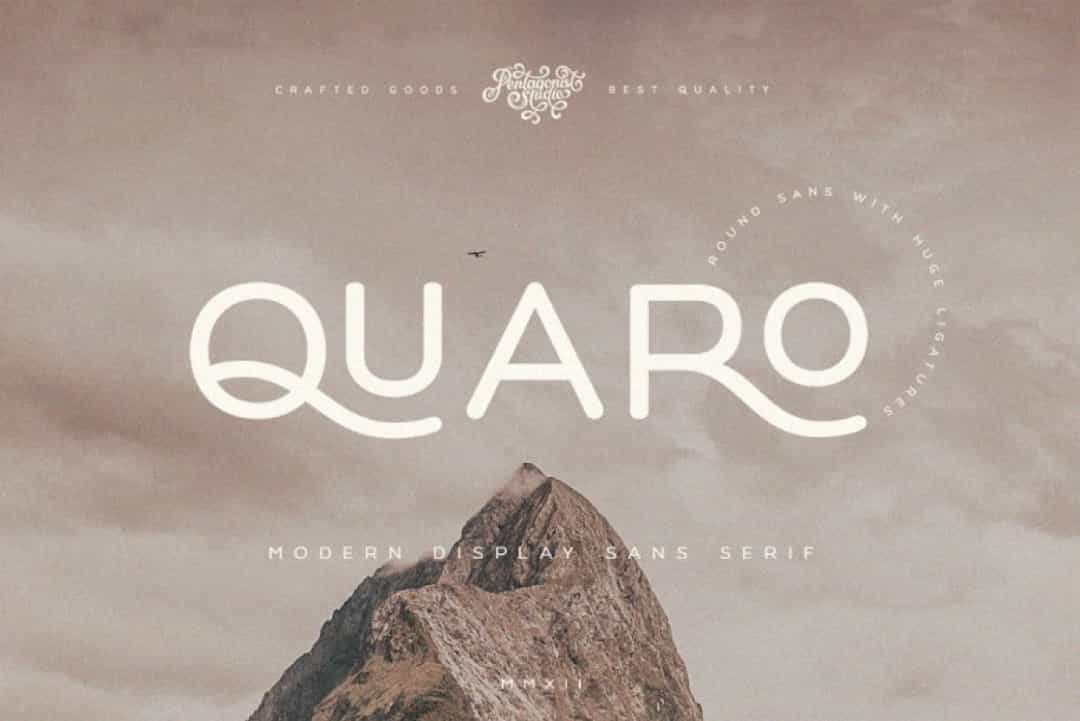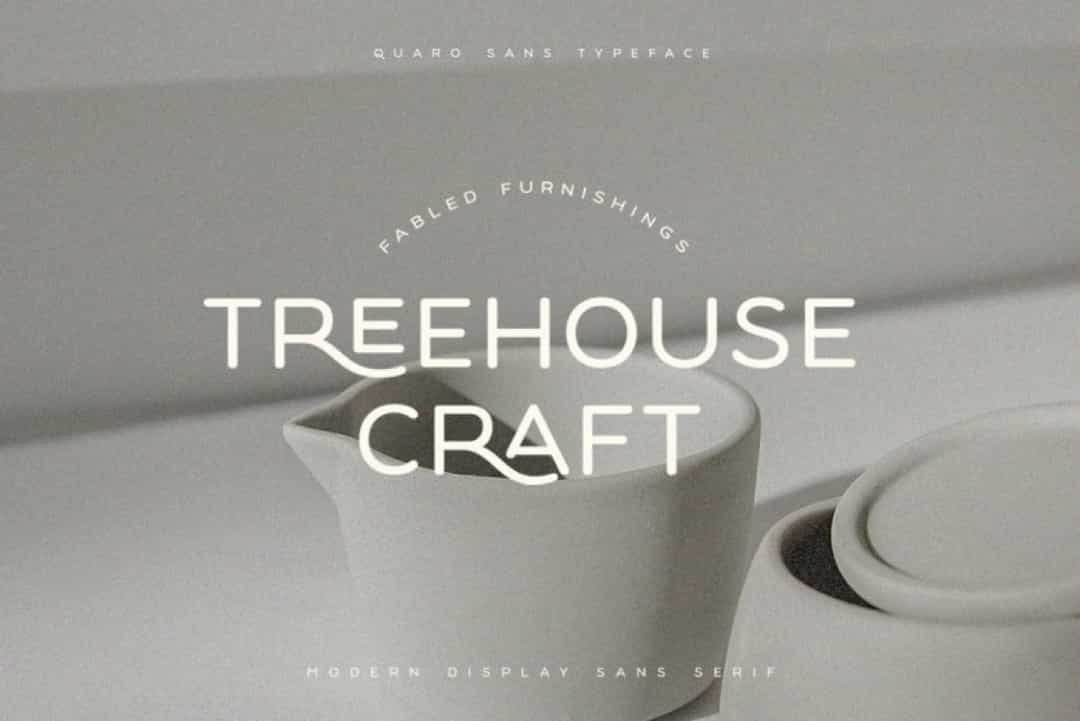
Quaro is an eye-catching modern display sans serif font that was inspired by fashionable round fonts, making it the ideal font choice for logos, branding projects, design work, clothing branding packages for products magazine headers or simply as an eye-catching text overlay on images.